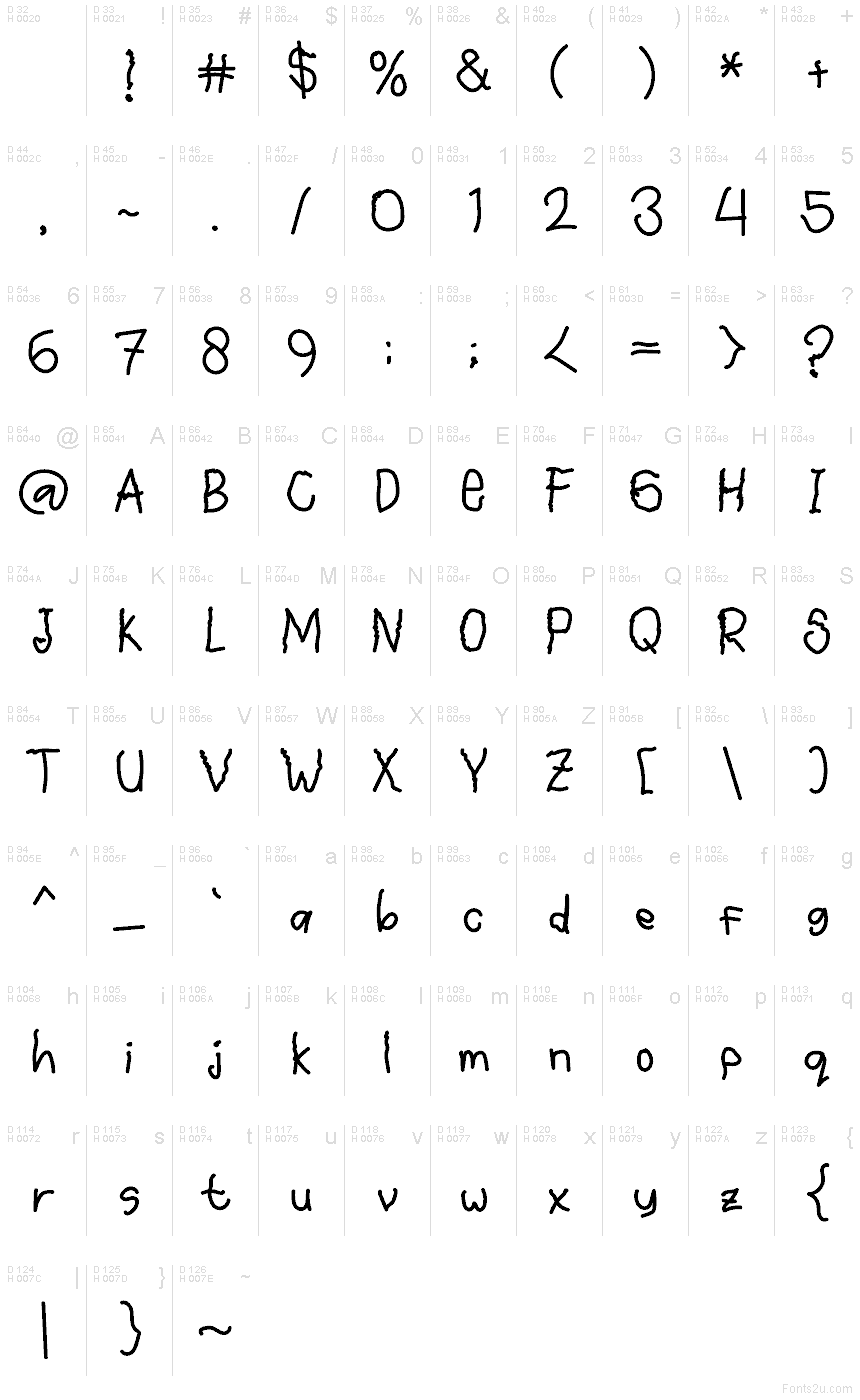
The Lazt Kinderjay
The Lazt Kinderjay font by Mr.Soon Design is a free handwritten typeface. Its squiggly strokes, soft corners, and slightly wobbly rhythm feel like fresh marker on smooth paper—friendly, unpolished, and full of kid-energy. Letters bounce with a loose, playful cadence that stays readable, giving headlines a cheerful, inky charm without turning messy.
Using The Lazt Kinderjay, you can bring warmth to kids’ book covers, birthday invitations, classroom posters, stickers, craft labels, family vlog thumbnails, and playful logos. The open spacing holds up at larger sizes, so it shines on bold titles and short phrases. Pair this free font with a neat rounded sans for body copy to keep the fun anchored and easy to scan.